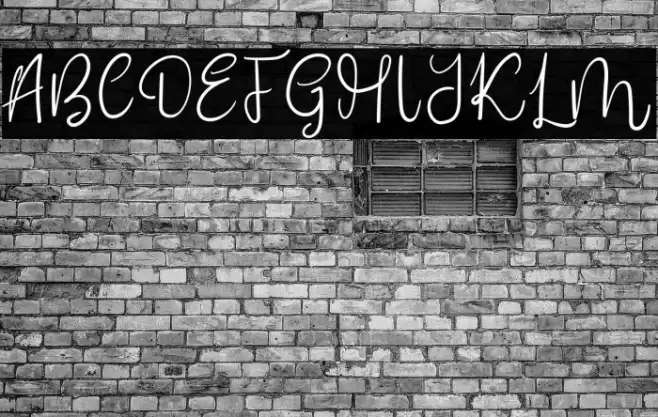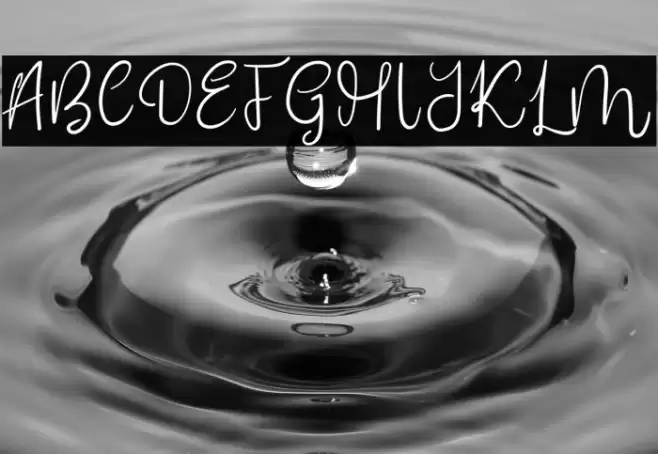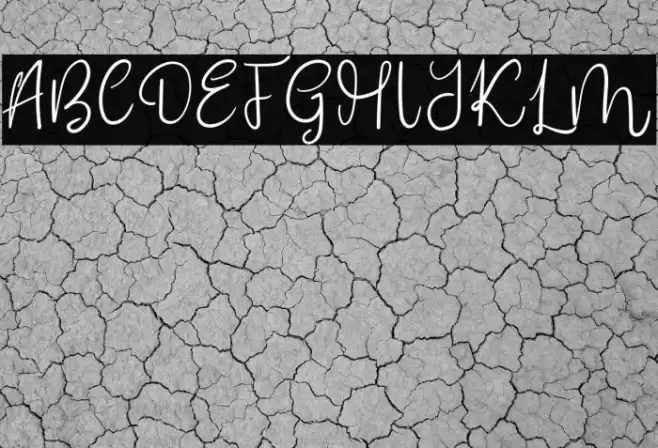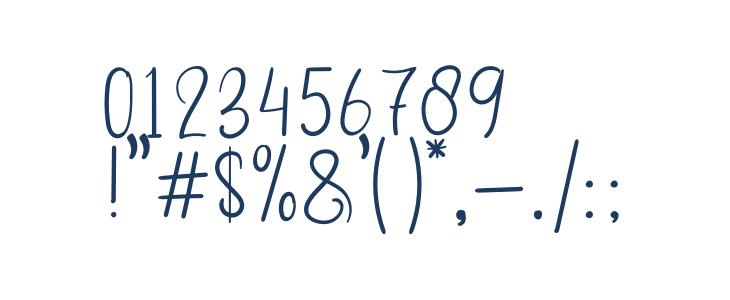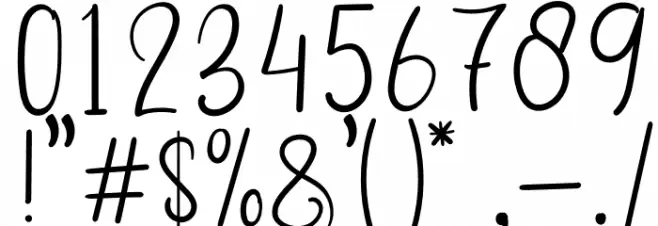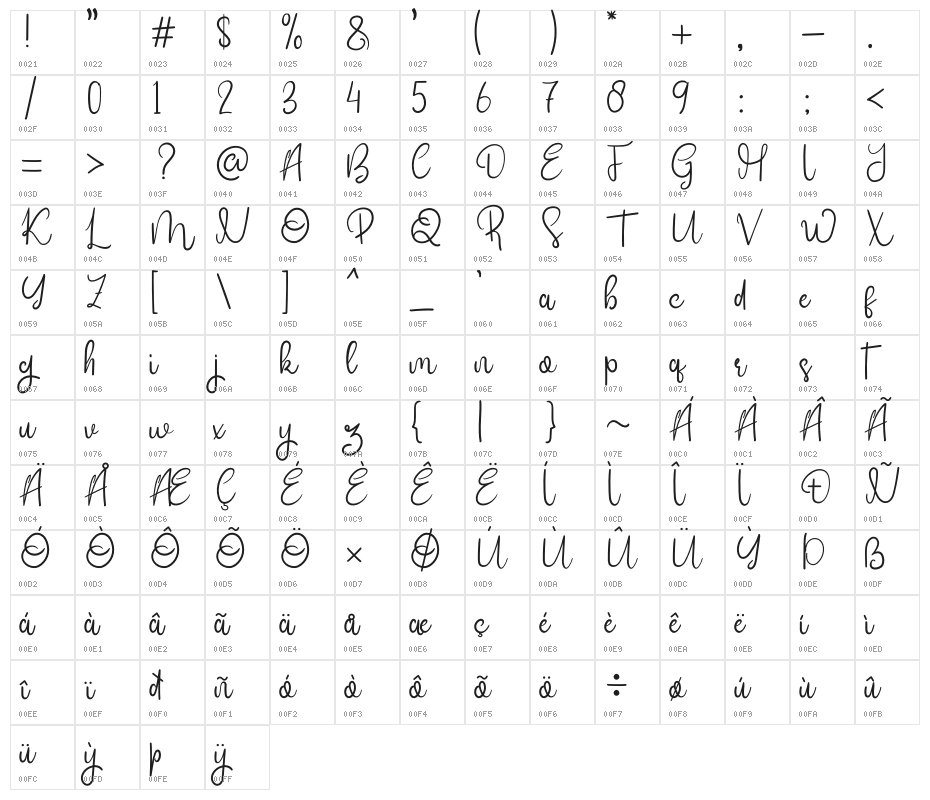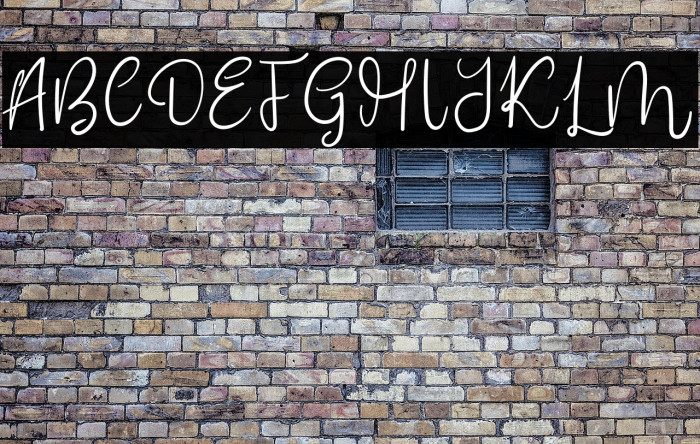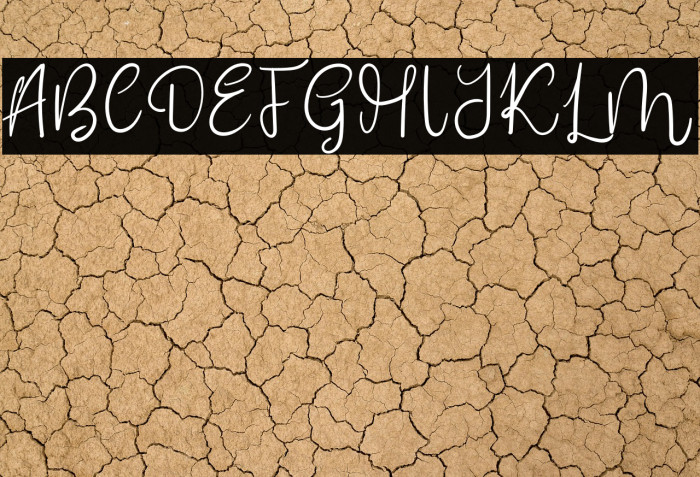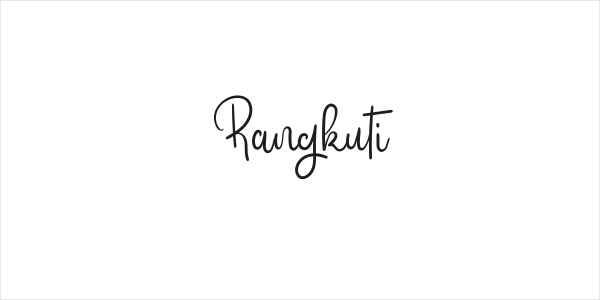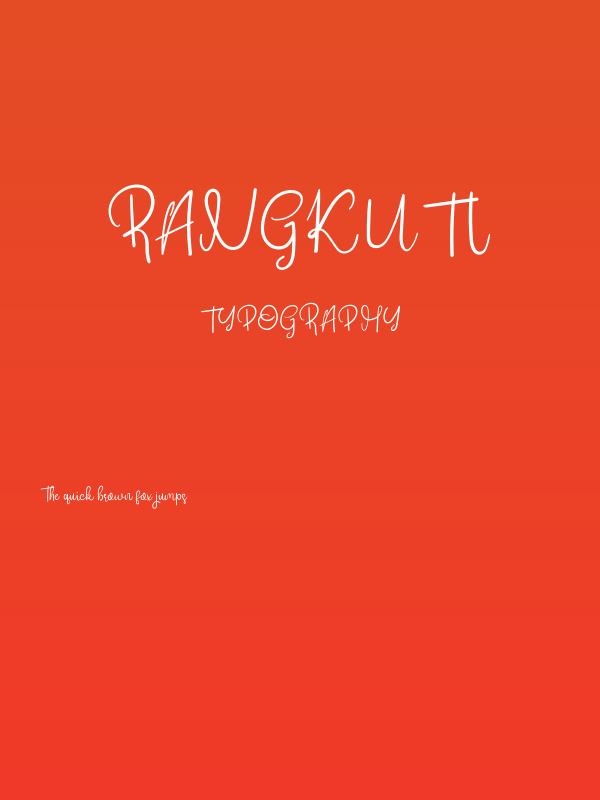
Rangkuti Font
Rangkuti Description
This font features a playful and whimsical script style, characterized by its fluid and flowing letterforms. The uppercase letters are elegantly looped and interconnected, creating a sense of movement and rhythm. The lowercase letters maintain a consistent style, with smooth curves and a casual, handwritten appearance. The numerals are clear and legible, with a slight slant that complements the overall aesthetic. Special characters are creatively designed, adding to the font's charm and versatility. This font exudes a friendly and approachable vibe, making it suitable for a variety of creative projects.
A playful and whimsical script font with fluid, interconnected letterforms from Uncategorized fonts.
- Font: Rangkuti